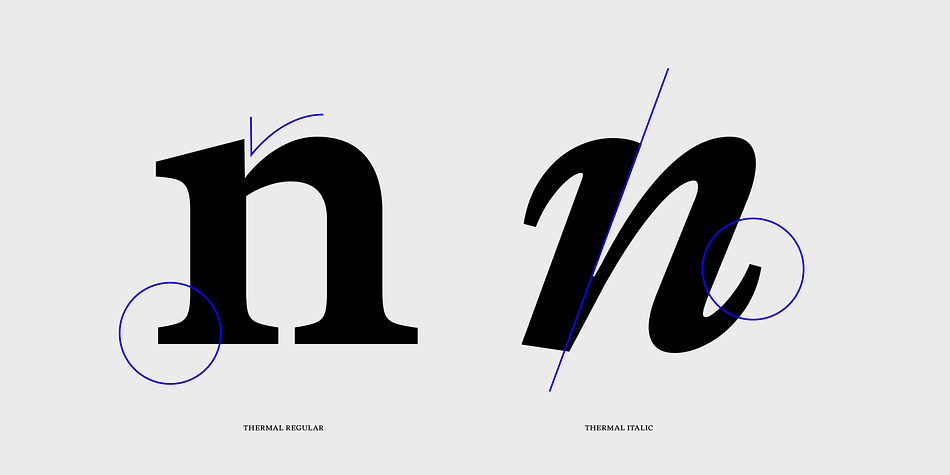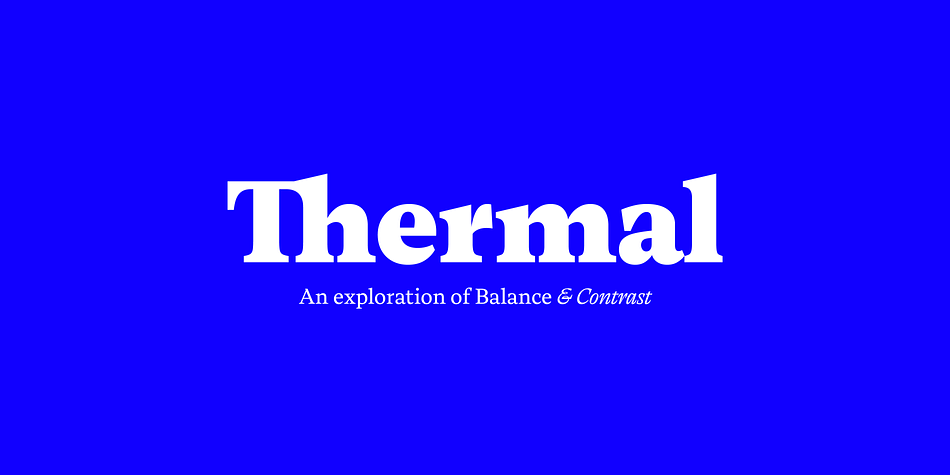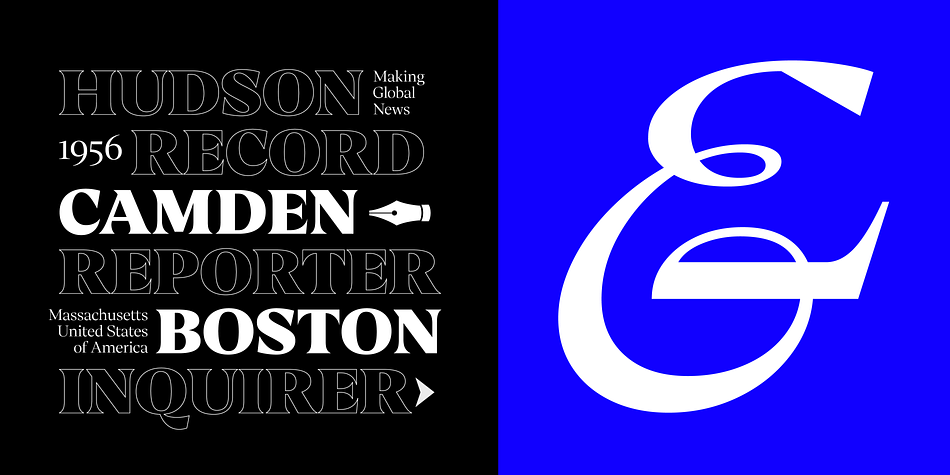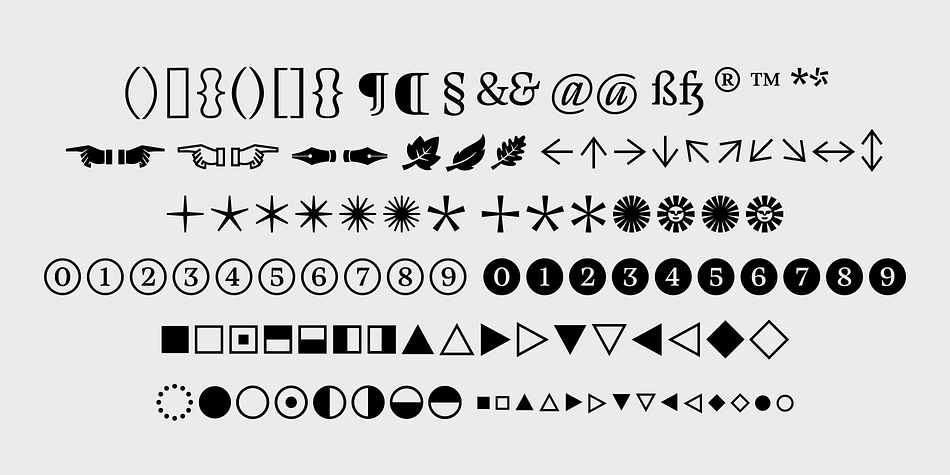
Thermal
Designed by Fernando Díaz, Thermal is a serif font family. This typeface has forty-eight styles and was published by TipoType.
Thermal is an exploration of balance and contrast. Combining the elegance of classical typography with the sharpness of contemporary design. It was conceived to be a variable font with two axes: weight & optical size, providing a wide range of options for texts & display applications. The regular and italic text weights breathe a warm atmosphere, their design inspiration is a relaxed interpretation of the work of 16th-century French type designer Robert Granjon, evoking a comforting rhythm and a sense of familiarity that makes reading enjoyable.
On the other end of Thermal’s design spectrum lie the extreme weights – thin and heavy –, specifically designed for larger sizes. These weights borrow stylistic cues from several distinct influences: the characteristic woodtype from the 19th century, the sharp lettering styles from the 70s, and the bold work of Oscar Ogg. One of Thermal’s disctint features is its italic’s 20° inclination, an significant inclination by all standards, this design choice finds its roots in the “Ascendonica Cursive” of 1571, but is a contemporary interpretation that generates a captivating contrast with the regular version. Thermal studies the past and analyzes the present to create a unique blend, bringing a dictint dichotomic identity.
2024 TDC Certificate for Typographic Excellence